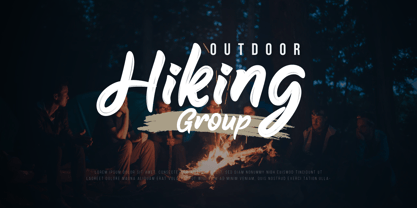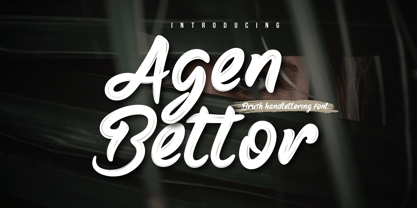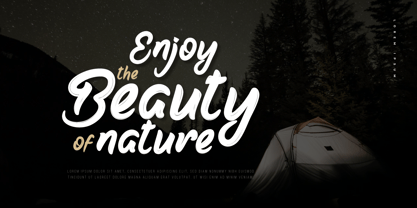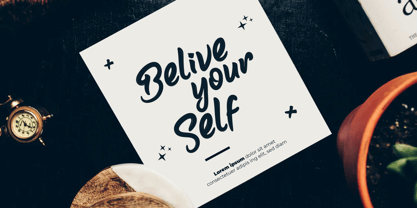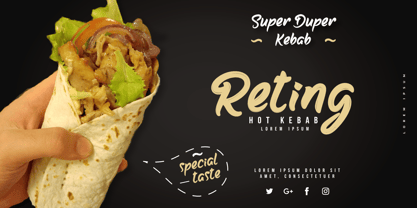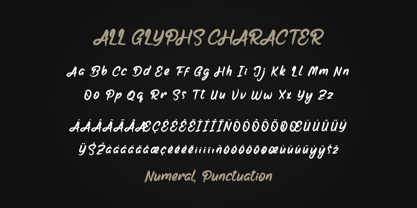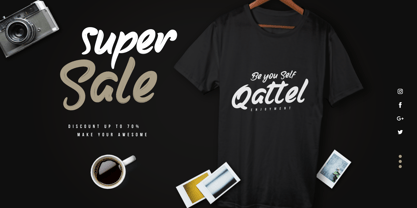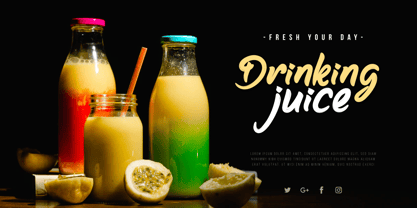
Agen Bettor
by Product Type
The Agen Bettor Font Family was designed by Lita Faolina and published by Product Type. Agen Bettor contains 1 styles.
Elevate your designs with Agen Bettor - Brush Handwritten Font, the font that's sleek, modern, and effortlessly stylish! With its clean strokes and contemporary design, Agen Bettor brings a sense of professionalism to every project. Whether you're designing chic business cards, crafting minimalist website headers, or creating polished product labels, Agen Bettor is your go-to font for making a statement. Get ready to stand out from the crowd and make a lasting impression with Agen Bettor - the font that's as cool as it gets!